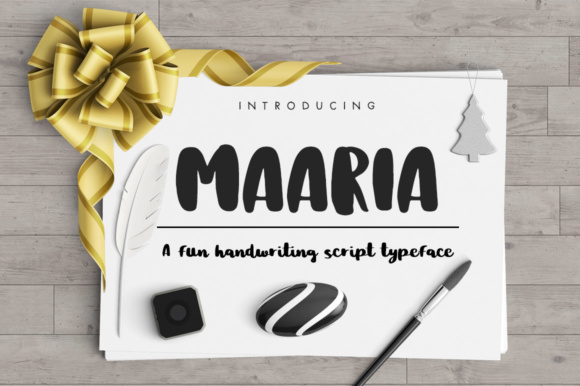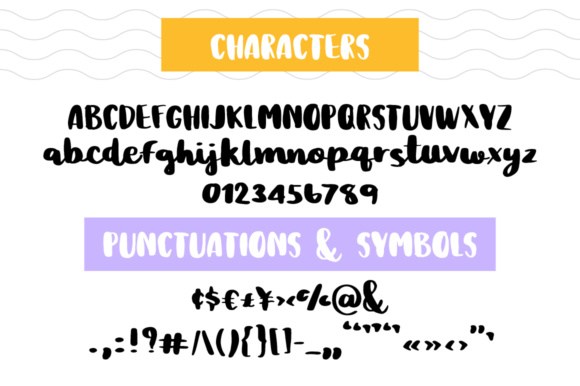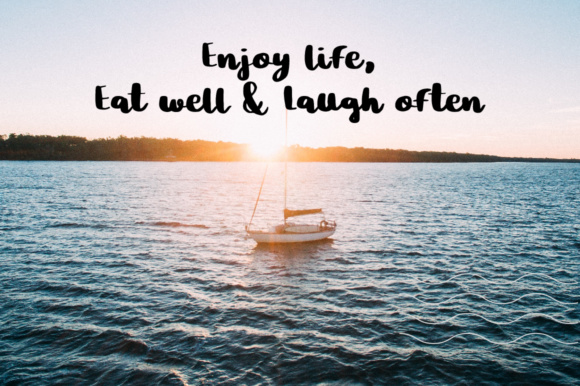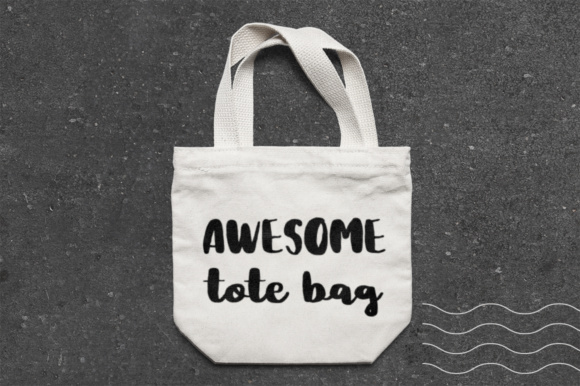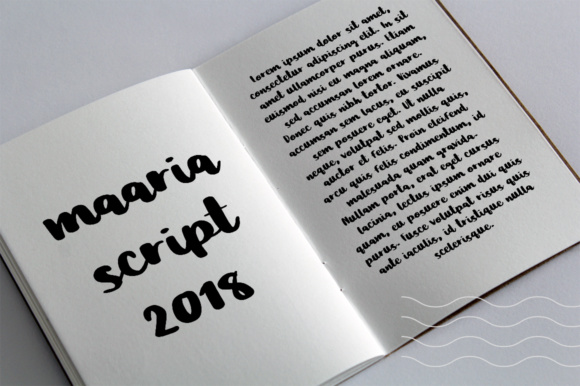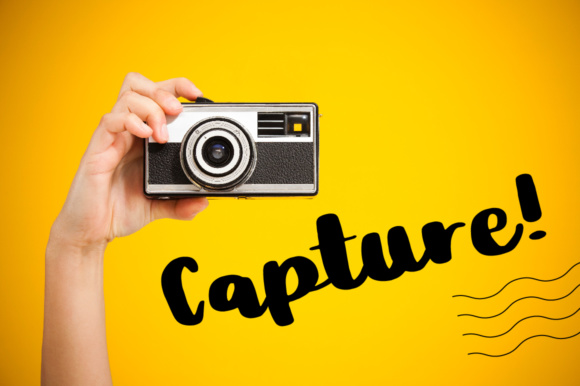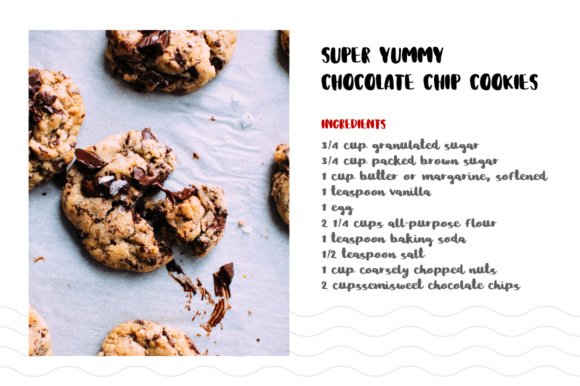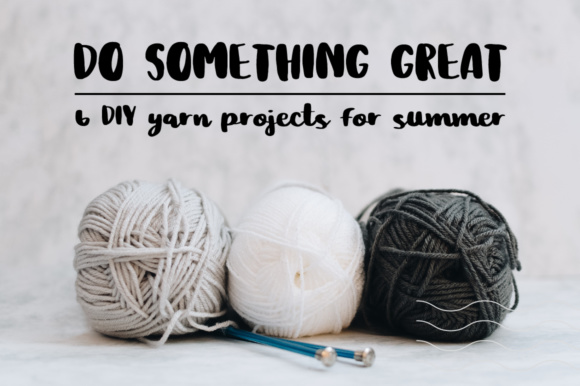
Maaria Script Font
About Maaria Script Font
Maaria Script is a handwritten script typeface. It has a thick and thin stoke which gives it a fun, informal and teenage vibe. It can be used as a cute minimal-style header, as a display or as a stylish text for crafts, DIY or kids related projects.